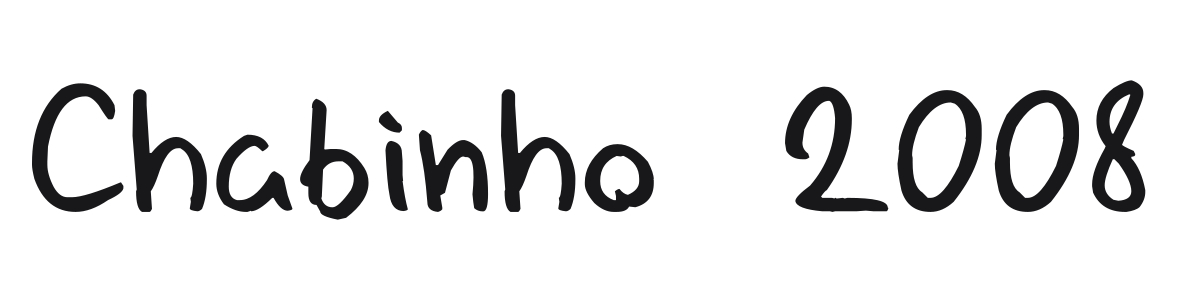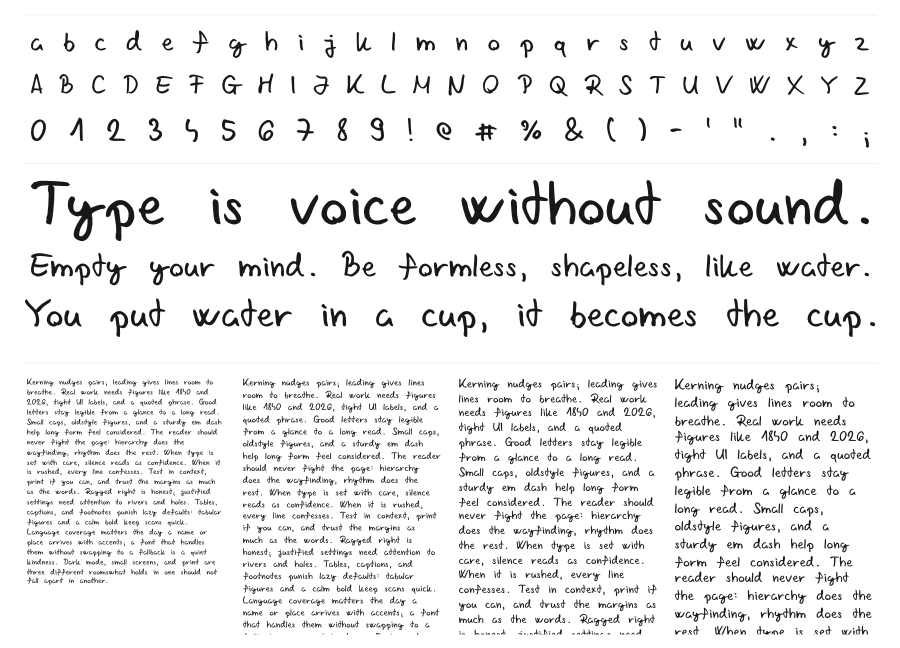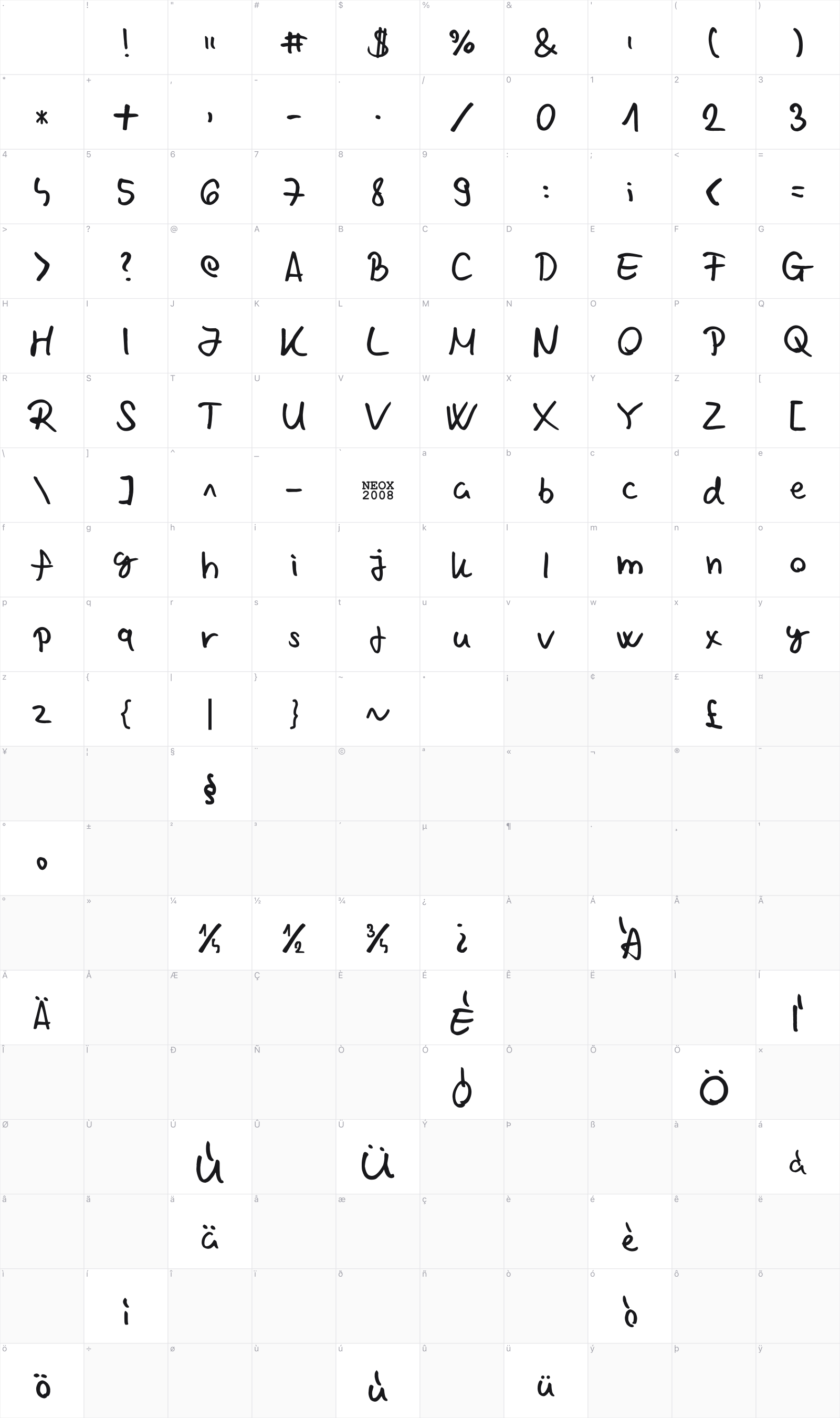
Chabinho 2008
Chabinho 2008 is a casual handwritten face with rounded, marker-style letterforms that feel loose and friendly without trying too hard. The strokes have a natural, slightly bouncy quality that keeps things playful, making it a good fit for headlines, posters, and informal branding where approachability is the goal.